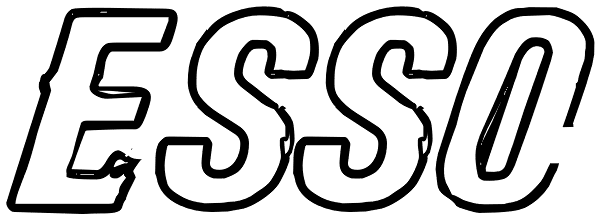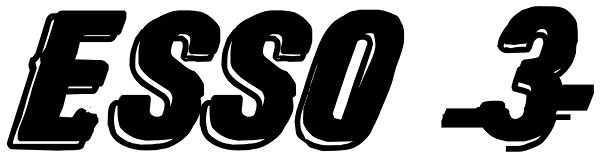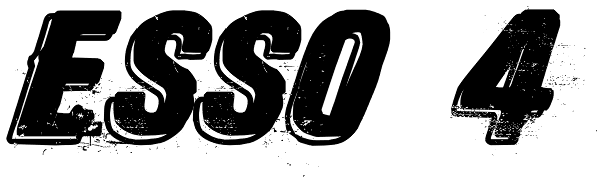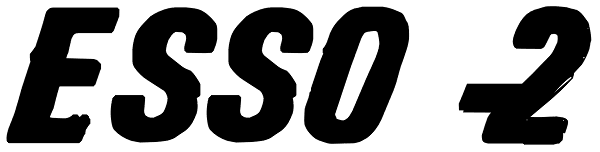
Esso
Inspired by Gas Stations and Surf, Esso is a unique SansSerif font in 4 versions. It is perfect for credits, display and titles. It is very usable and adaptable to create new designs because of its ligatures. Esso1 An outline version with ink...
Esso
Esso 3
Esso 4
Esso 2